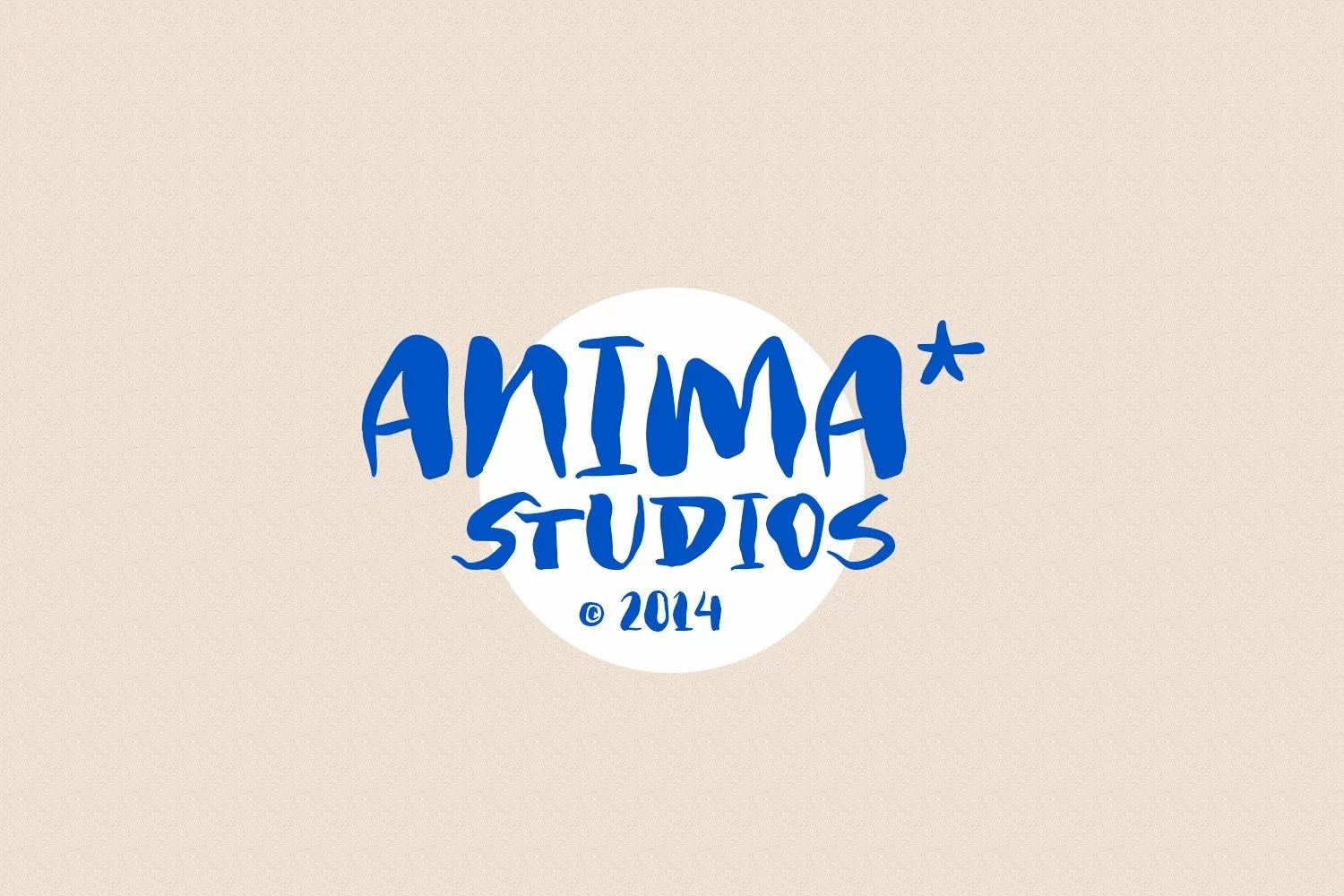
Sack and Jelly is a fancy handwritten font. With bold contrast stroke, fun character with a bit of ligatures. To give you an extra creative work. Sack and Jelly font support multilingual more than 100+ language. This font is good for logo design, Social media, Movie Titles, Books Titles, a short text even a long text letter and good for your secondary text font with sans or serif. Make a stunning work with Sack and Jelly font.
Sack and Jelly